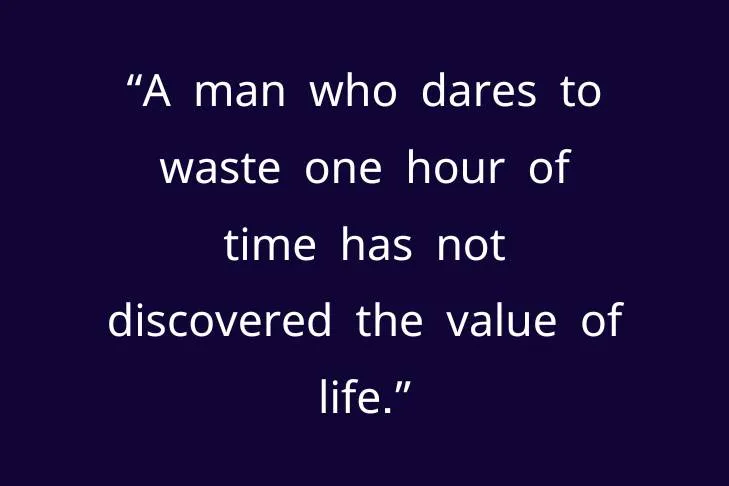
If you are searching for a Hindi typeface, then I’ll recommend you go with this amazing typeface which acquires many attractive features. Mangal font belongs to the Unicode fonts family and these Unicode fonts are specifically used with Devanagari, Bengali, Gujarati, Tamil, and Gurmukhi Scripts and are typically used in digital typography.
The credit for its creation goes to Microsoft, and it was purposefully developed for the Windows operating system. This typical typeface is commonly used throughout the Indian subcontinent to view and produce content in the Hindi language.
One of Mangal’s topmost benefits is that it embraces a variety of punctuation marks frequently used in Indian languages, empowering users to adequately reproduce complicated writing systems.
Usage of Mangal Font
It is widely used in the publishing industry due to its readability and consistency across various printing mediums. Its legibility in every size makes it the top-notch choice for every design and complements the requirement of many projects. This font style can be made well paired with rajdhani font.
As this is a Hindi-Script font so, it can be utilized for Indian newspapers, magazines, books, or for giving titles to Indian movies. Besides this, the lawmaker’s agency also prefers this vigorous typeface to write legislature or to add clauses in the constitution because of its impactful and influential writing style.
Font Info
Name | Mangal Font |
Style | Sans Serif |
Designer | Raghunath Joshi |
Alternative Fonts to Mangal Font
There are alternatives that consumers may find more pertinent to their needs, even though Mangal is an iconic and comprehensively used font for Indian languages. Here are a few often-used Mangal substitutes:
- Malayalam Font
- Nirmala UI Font
- Lohit Font
- Shusha Font
What type of font is Mangal?
Mangal belongs to the Unicode fonts family and these Unicode fonts are specifically used with Devanagari, Gujarati, and Gurmukhi Scripts and are typically used in digital typography. It was purposefully developed for the Windows operating system.
Where can we use the Mangal font?
It is widely used in the publishing industry due to its readability and consistency across various printing mediums. Its legibility in every size makes it the top-notch choice for every design and complements the requirement of many projects.